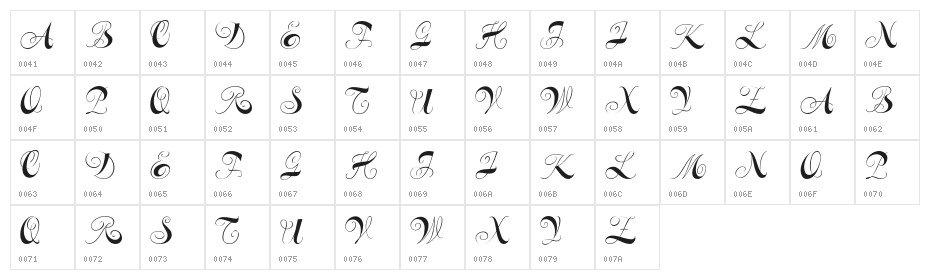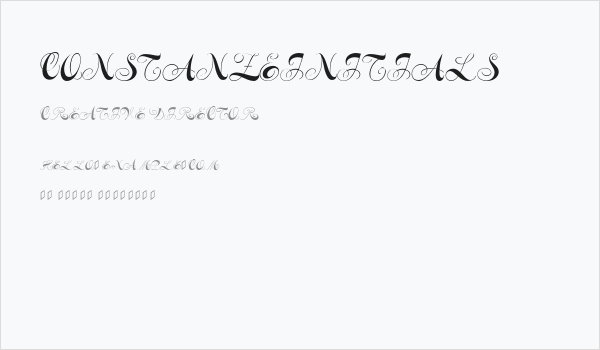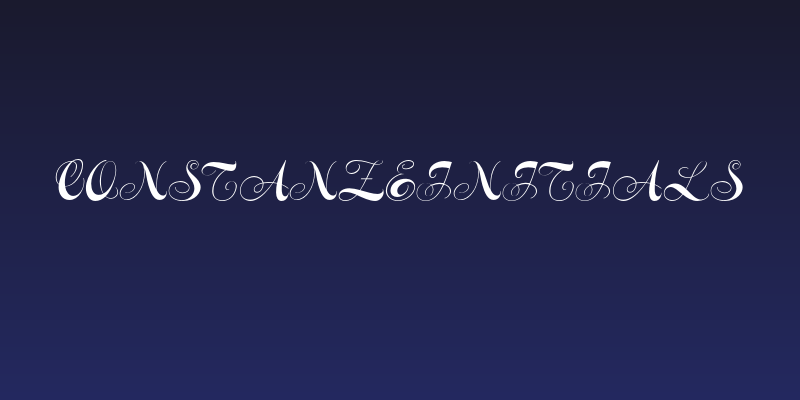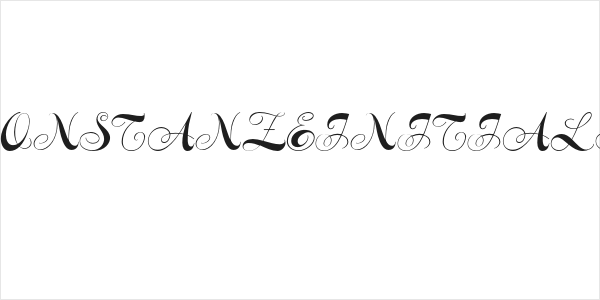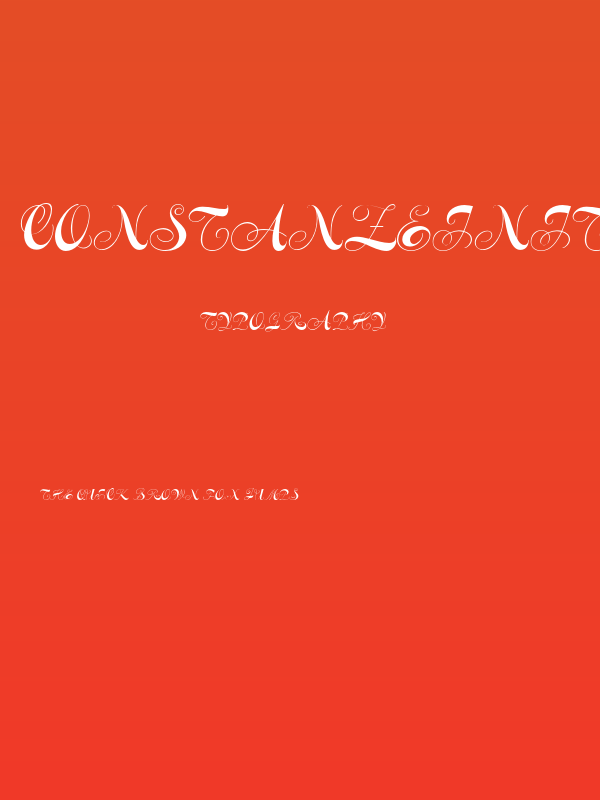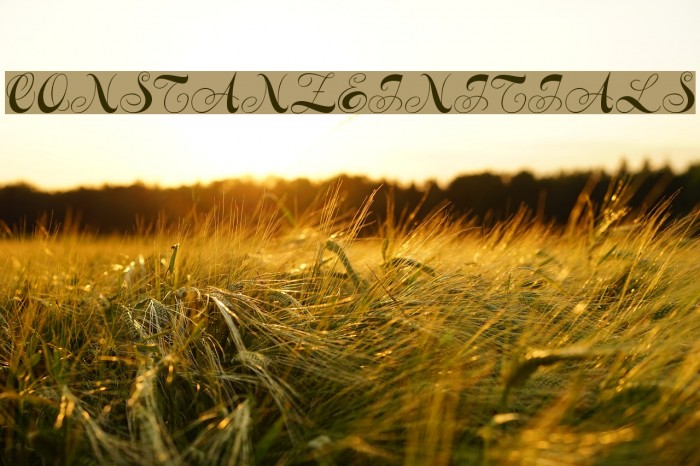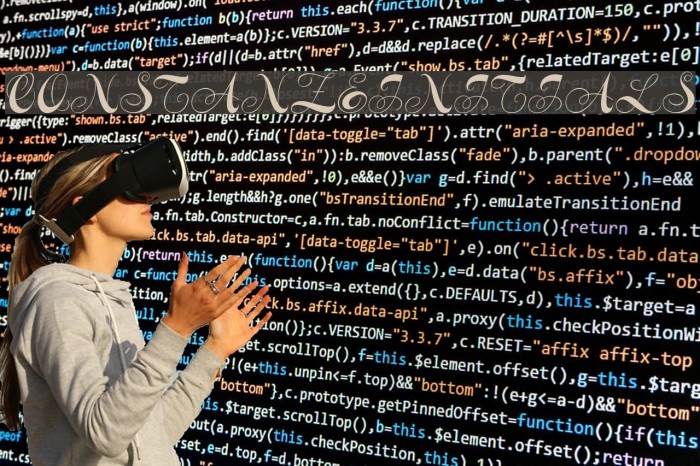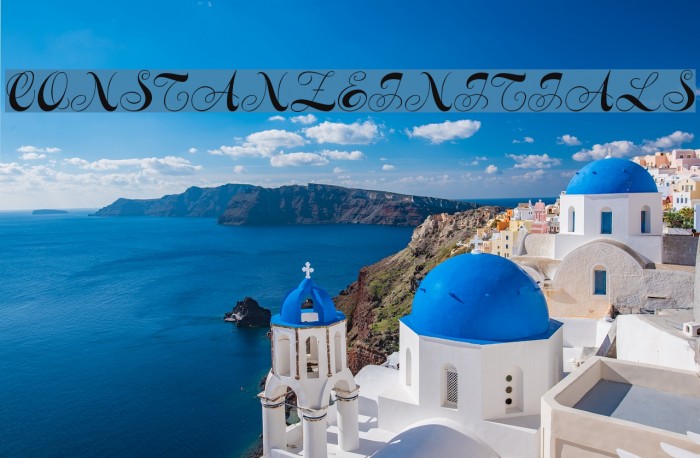
ConstanzeInitials Font
ConstanzeInitials Description
This font is an elegant and sophisticated script style, characterized by its flowing, cursive letters that exude a sense of formality and grace. The uppercase letters are particularly ornate, with intricate swirls and loops that add a decorative flair. The lowercase letters maintain a consistent style, complementing the uppercase with their own subtle flourishes. The overall design is reminiscent of classic calligraphy, making it ideal for projects that require a touch of elegance and refinement. The font's unique style is well-suited for formal invitations, certificates, and branding that seeks to convey luxury and sophistication.
| Proposed Projects | Perfect for wedding invitations, formal event programs, luxury brand logos, and elegant stationery. |